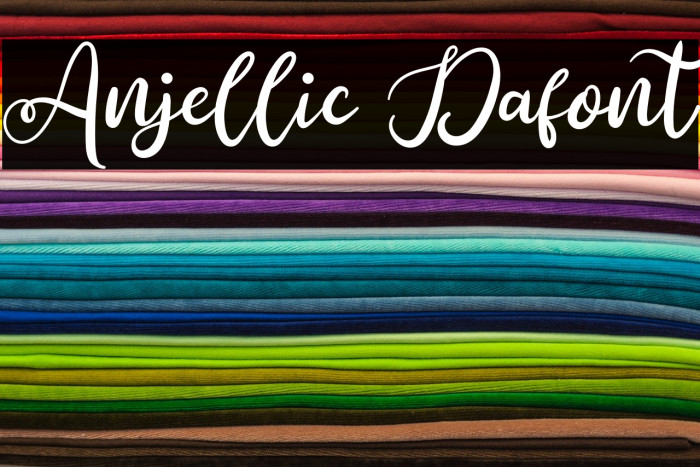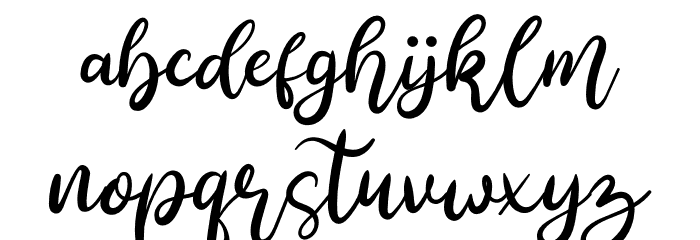
Anjellic Dafont Font
This elegant script font features flowing, cursive letterforms with a modern twist. The uppercase letters are characterized by their graceful loops and swirls, while the lowercase letters maintain a consistent, smooth flow. The font's design is both sophisticated and approachable, making it ideal for a variety of creative projects. The numerals are stylishly integrated, complementing the overall aesthetic. Special characters are thoughtfully crafted, adding versatility to the font's usage. The font's balance of elegance and readability makes it suitable for both digital and print media.
A modern, elegant script font with flowing cursive letterforms.
• Overall Style: Modern